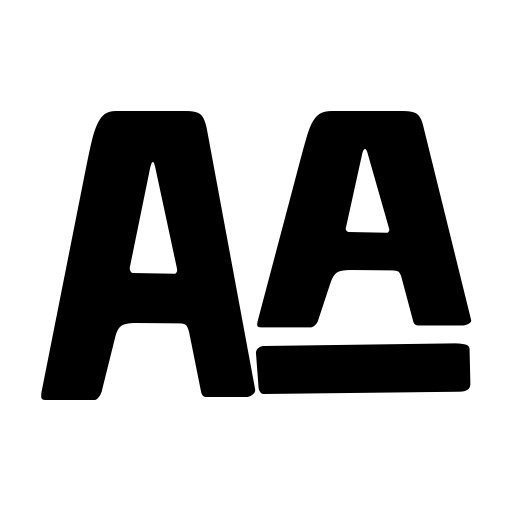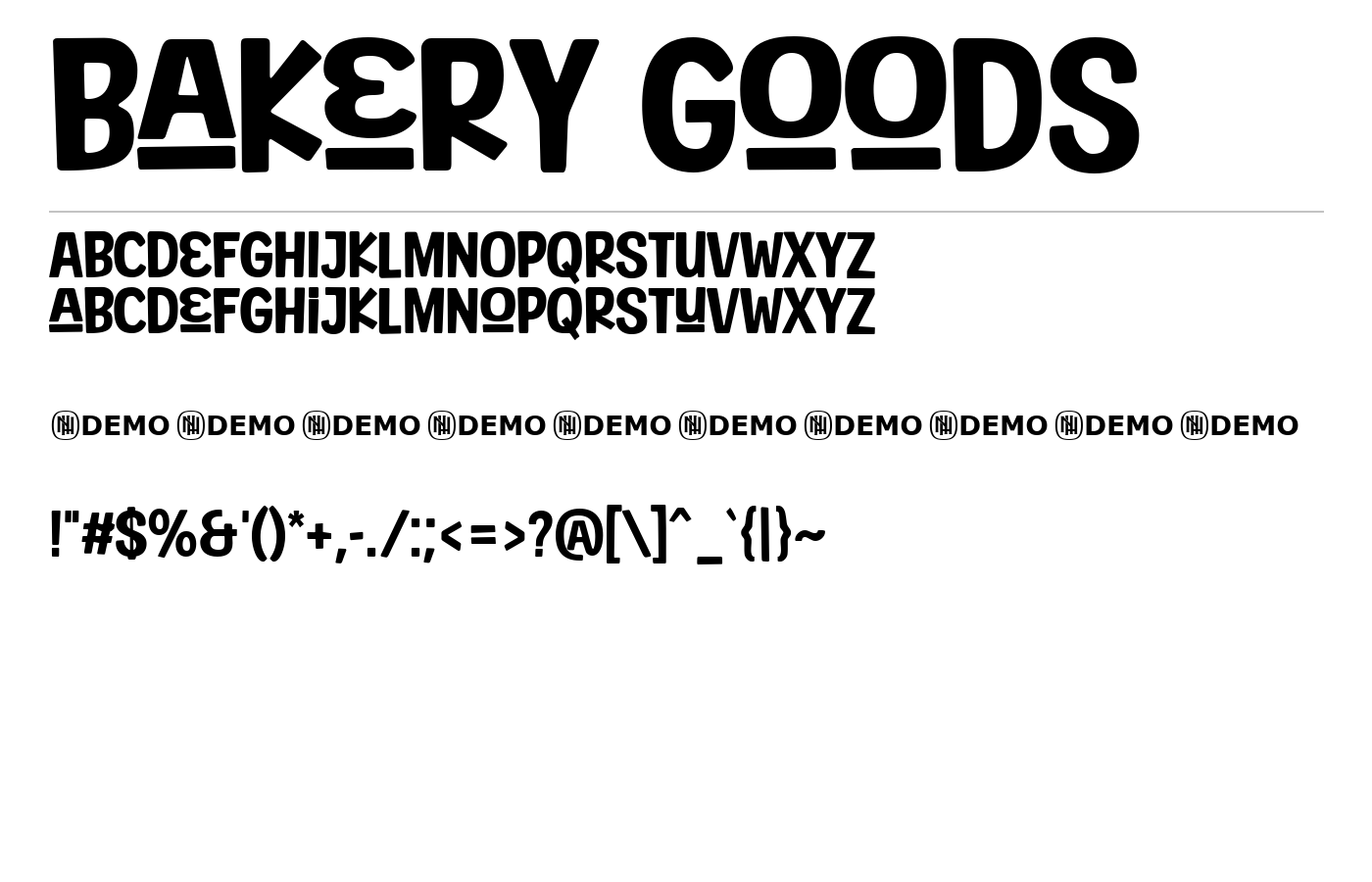
Bakery Goods Font is a bold, playful sans serif with a fun, handcrafted feel, featuring quirky shapes and irregular strokes that add personality and charm. Its strong presence and lively style make it ideal for eye-catching logos, packaging, and headlines where a casual yet distinctive vibe is desired. This font works especially well for brands wanting to convey warmth, creativity, and approachability with a touch of whimsy.
Bakery Goods Font
About Bakery Goods Font
| Font family | Bakery Goods Font |
| Designer | Ali Hamidi |